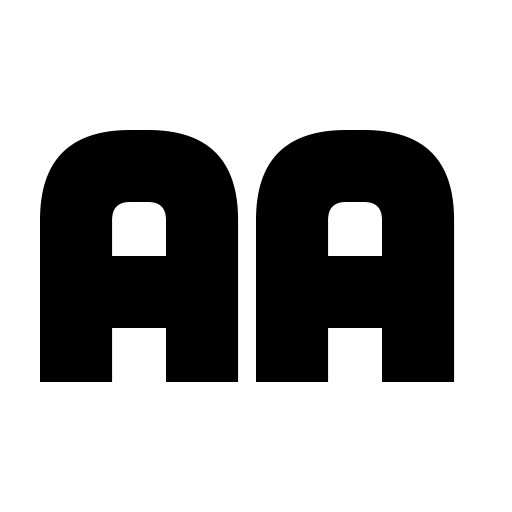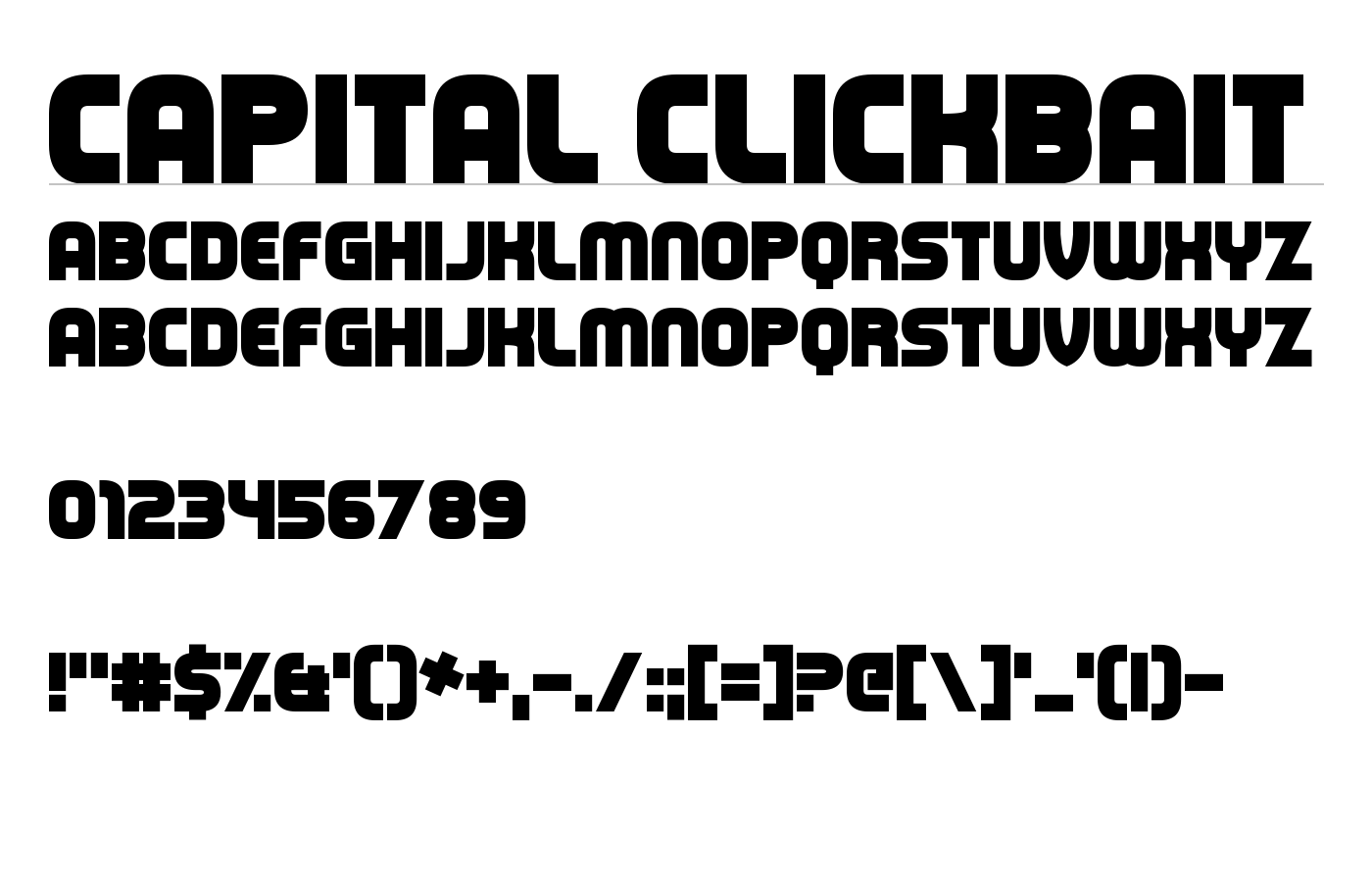
Capital Clickbait is a bold, geometric sans serif font with a strong, condensed structure and minimal stroke contrast, giving it a modern and impactful presence. Its thick, blocky letterforms and unique curved details make it perfect for eye-catching headlines, posters, and branding that demand attention with a contemporary, sturdy style. This font works well in contexts where boldness and clarity are key, providing a confident and dynamic tone.
Capital Clickbait Font
About Capital Clickbait Font
| Font family | Capital Clickbait Font |
| Designer | AM |